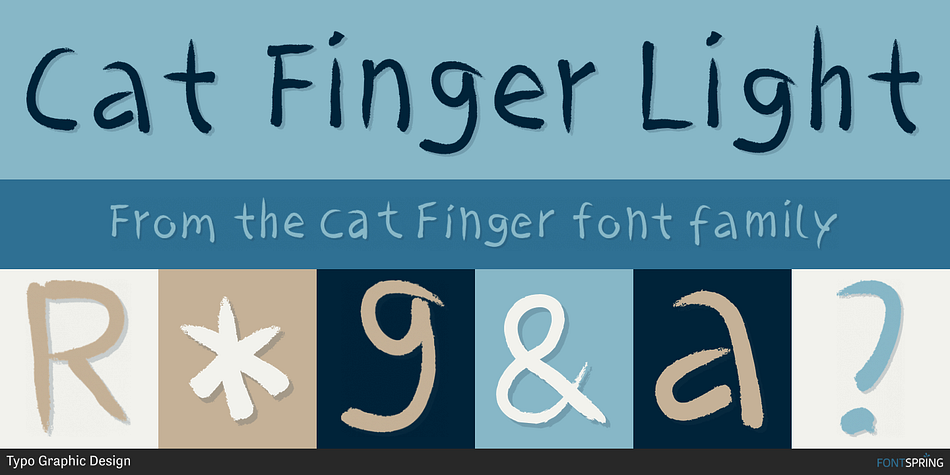
Cat Finger Light
Designed by Manuel Viergutz and Carmen Thiemer, Cat Finger is a hand display and dingbat font family. This typeface has twelve styles and was published by Typo Graphic Design.
The typeface Cat Finger is designed from 2021 for the font foundry Typo Graphic Design by Manuel Viergutz × Carmen Thiemer.
The display font based on the human hand. Started analog with acrylic paint, a finger and a white paper. After scanning, a digital brush was created. With the help of a touch tablet, this brush was used as a writing tool. One font-stlye written with the left hand (left) and one with the right hand (right). ????????
4 font-styles (Left, Right, Light, Fat) + 1 icon-style with 812 glyphs (Adobe Latin 3) incl. 100+ decorative extras like icons, arrows, catch words, dingbats, emojis, symbols, geometric shapes (type the word #LOVE for ❤ or #SMILE for ☺ as OpenType-Feature dlig) and stylistic alternates (10 stylistic sets).
For use in logos, magazines, posters, advertisement plus as webfont for decorative headlines. The font works best for display size.